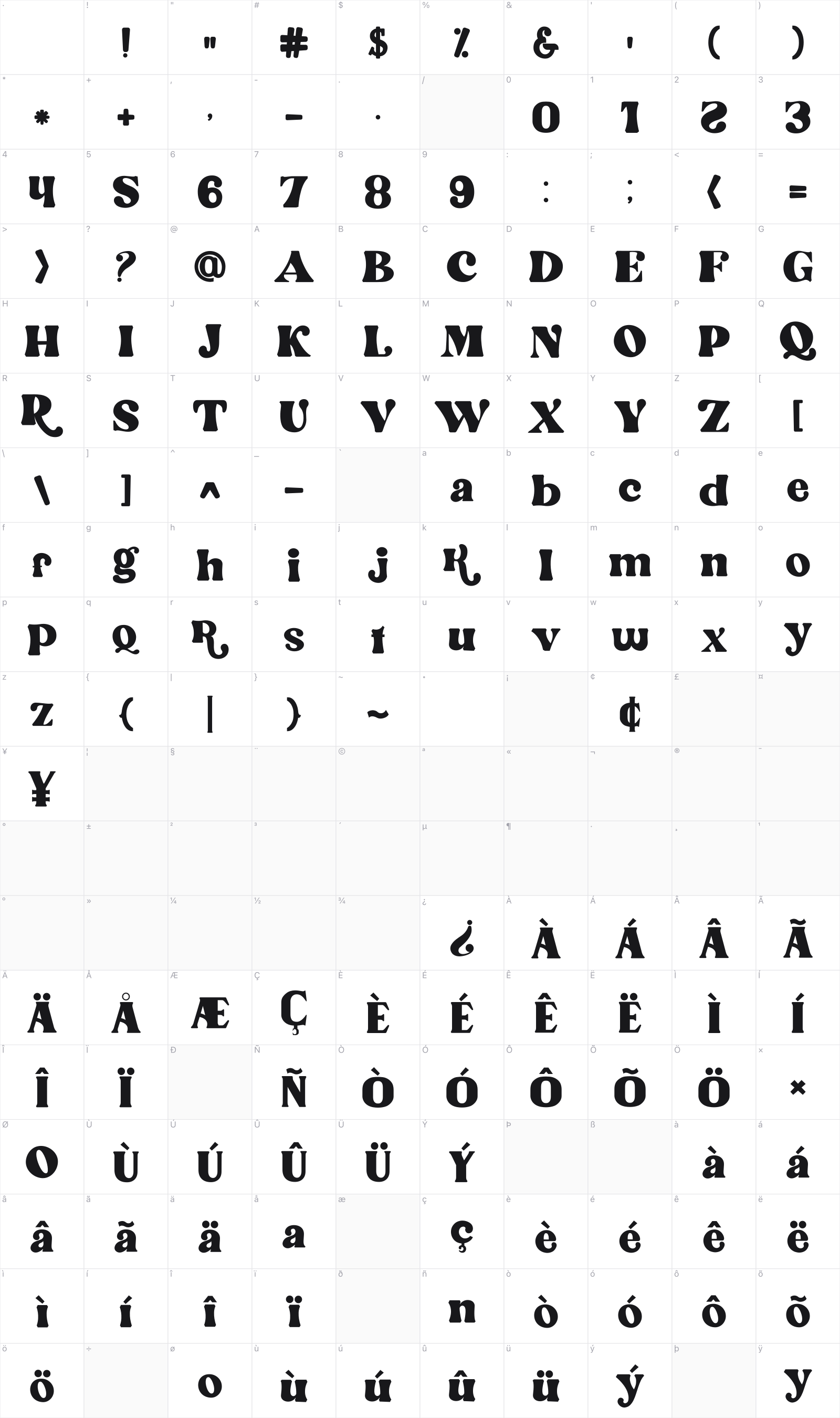
Antique Wonders
Antique Wonders is a bold retro serif with a groovy, psychedelic warmth drawn from late 1960s and 1970s typography. Its high stroke contrast, flared serifs, and organically swelling terminals give it a hand-crafted quality that feels simultaneously vintage and fashionable. It works loudly on editorial covers, brand logos, and anything that needs nostalgic personality at large sizes.